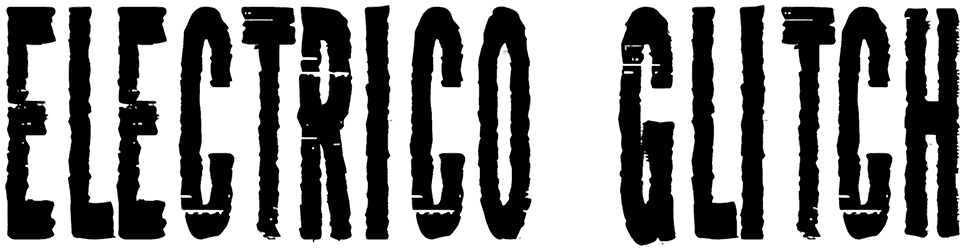
Electrico Glitch Font
Electrico Glitch font has that chaotic digital energy that makes a headline feel like it’s breaking through the screen on purpose. The distorted shapes, sharp cuts, and unstable rhythm give it a proper glitch personality, but not in a way that feels random. There’s enough structure underneath the noise to keep your layout looking designed, which is exactly why it works so well.
Use Electrico Glitch font for cyberpunk posters, gaming thumbnails, music covers, tech event flyers, or brand visuals that need a signal-loss kind of drama. Pair this glitch font with scan lines, neon lighting, dark gradients, and fractured textures for a result that feels loud, current, and impossible to scroll past.
Electrico Glitch.